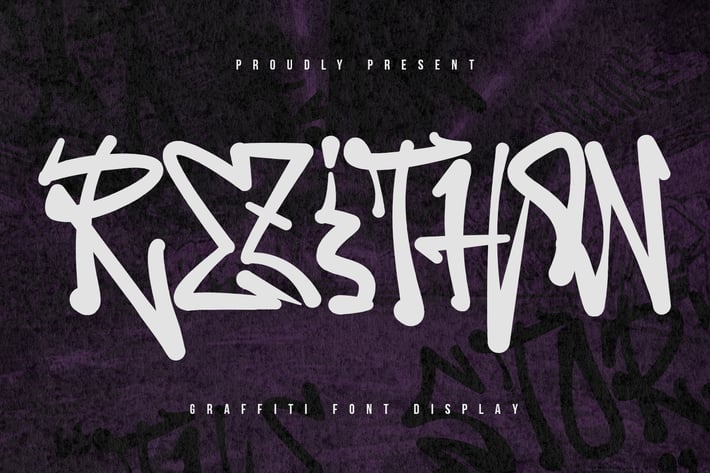
Rezithon Graffiti Display Font
Rezithon stylish graffiti display font. With vintage stroke, fun character with a ligatures and stylistic. To give you an extra creative work. Rezithon support multilingual language. This font is good for logo design, Social media, Movie Titles, Books Titles, a short text even a long text letter and good for your secondary text font with script or serif. Make a stunning work with Rezithon stylish graffiti display font.